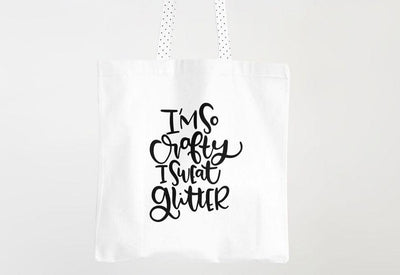
Craft SVG | I'm so Crafty I Sweat Glitter | Hobby SVG
I'm so crafty I sweat glitter! This funny SVG for craft SVG lovers would love this design in their stash of SVG files! Put it on a shirt and show your love for your favorite crafty hobby.